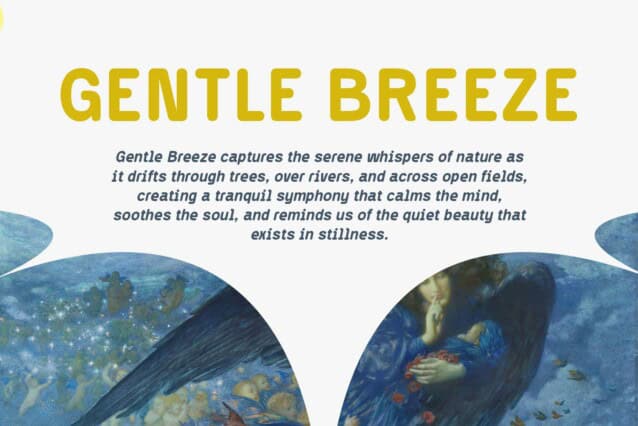
Darlond Rounded Font
Darlond Rounded Font is a geometric sans-serif font that blends bold, rounded shapes with a modern, clean aesthetic. The geometric structure of the font ensures precision and clarity, making it both visually striking and highly readable. Its rounded edges soften the overall appearance, giving the font a friendly and approachable vibe. This balance of strength and warmth makes Darlond Rounded a versatile typeface that can easily adapt to a wide range of design projects, from corporate branding to casual, creative applications.